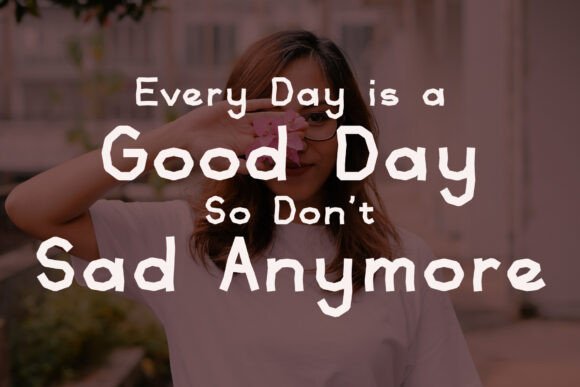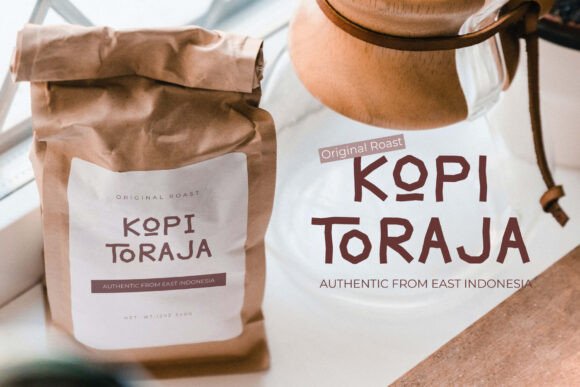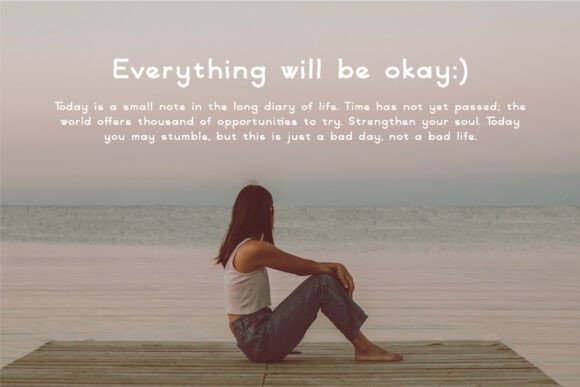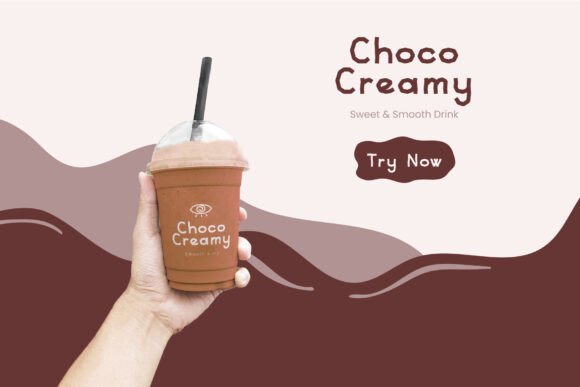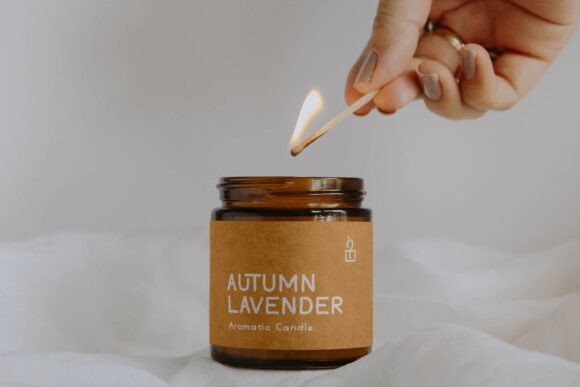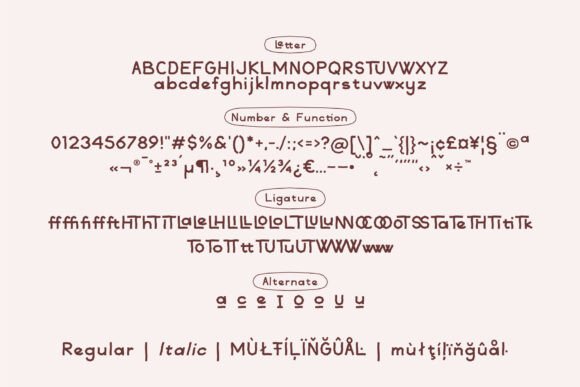
Introduction to Mico Font
Have you ever stared at a blank canvas, itching to bring your creative vision to life, but struggling to find the perfect design resource? For designers, this moment of uncertainty can be a daunting obstacle, but fear not – we’re about to introduce you to a game-changing font that will elevate your projects to new heights: the Mico Font.
Imagine a world where your words can dance across the page with bold, playful flair, captivating your audience and leaving a lasting impression. This is precisely what the Mico Font offers, with its distinctive zig-zag design that exudes fun and energy. Whether you’re working on a high-quality design for a client or a personal project, this free download is sure to bring a touch of whimsy to your creative endeavors.
Key Features of Mico Font
- Comes in 6 styles with 6 weights, providing versatility for diverse designs
- Perfect for designers and artists seeking a unique, high-quality font for their projects
Honest Review: Mico Font
I recently stumbled upon the Mico Font and I have to say it’s been a game-changer for my design projects. This free download is perfect for anyone looking to add a touch of elegance to their creative work.
- What works well: ✨ The Mico Font is incredibly versatile and can be used for a wide range of design applications, from headings to body text. Its high quality design makes it perfect for print and digital projects.
- What works well: ✨ The transparent background feature allows for seamless integration with any design resource, making it a great addition to my design toolbox.
However, I do have to mention a few limitations. ⚠️ The font family is quite limited, with only a few styles to choose from. This might be a drawback for designers who need a wide range of options for their project.
Overall, I’m really impressed with the Mico Font. It’s a high quality design resource that’s perfect for any creative project. With its elegant design and transparent background feature, it’s definitely a must-have for any designer looking to elevate their work.
Mico Font is a high-quality, free download design resource ideal for creative projects. Its transparent background makes it versatile and easy to use in various design applications.
Tips for Getting the Most Out of Mico Font
To get the most out of Mico Font, use it in combination with other high-quality design resources, experiment with different font sizes and styles, and consider pairing it with a solid background for maximum visual impact.
Mico Font is commonly used in creative projects such as graphic design, digital art, and print materials. Its transparent background makes it ideal for use in logos, icons, and other design elements that require a clean and minimalist aesthetic.